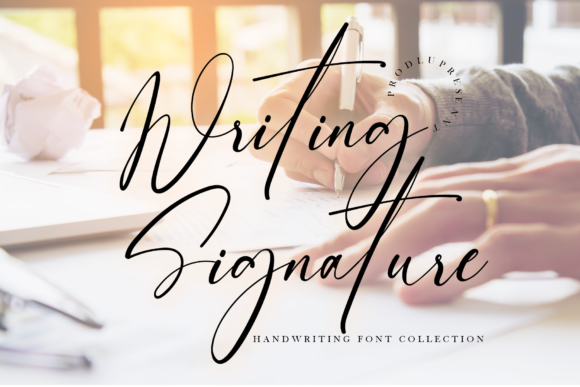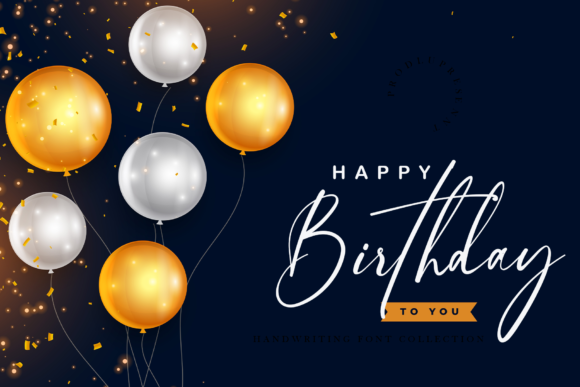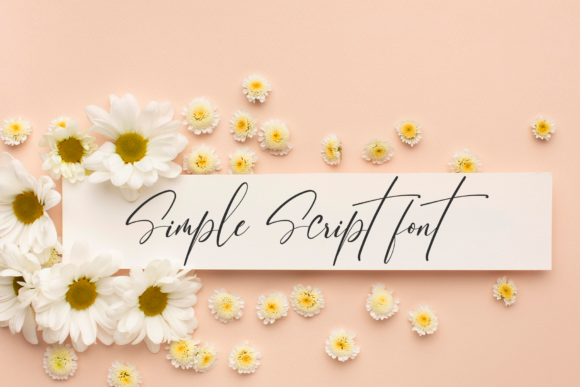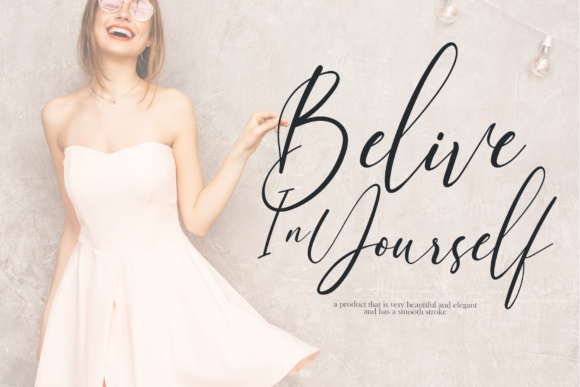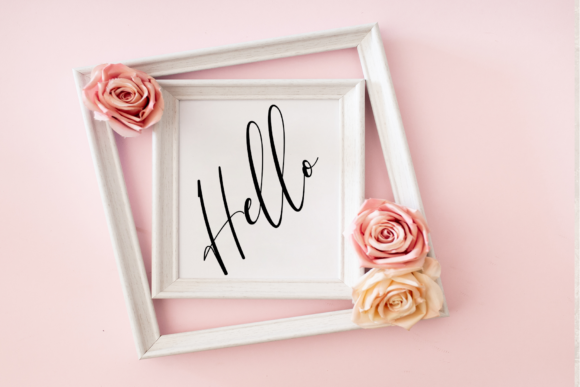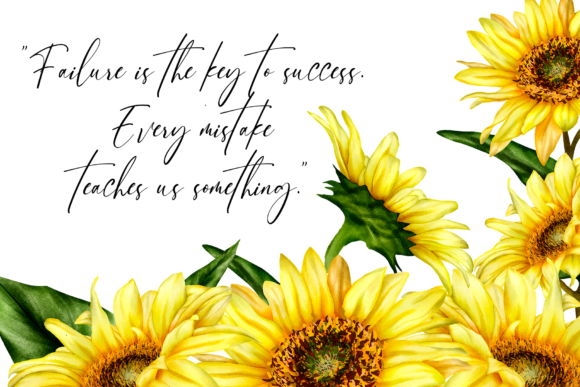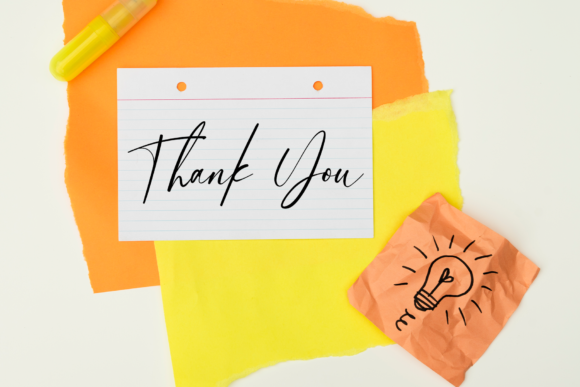
Writing Signature Font
Writing Signature is a simple but authentic handwritten font. This is the best choice for creating logos, greeting cards, branding t-shirts, and interesting quotes. Don’t be afraid to get creative with this font because the more you create, the more extraordinary it becomes.